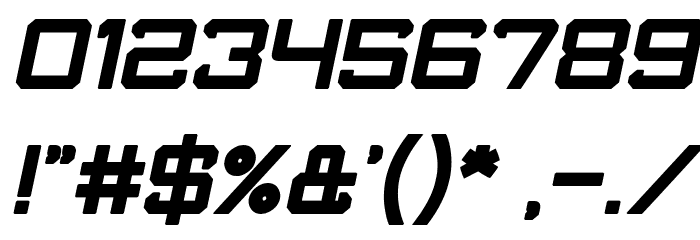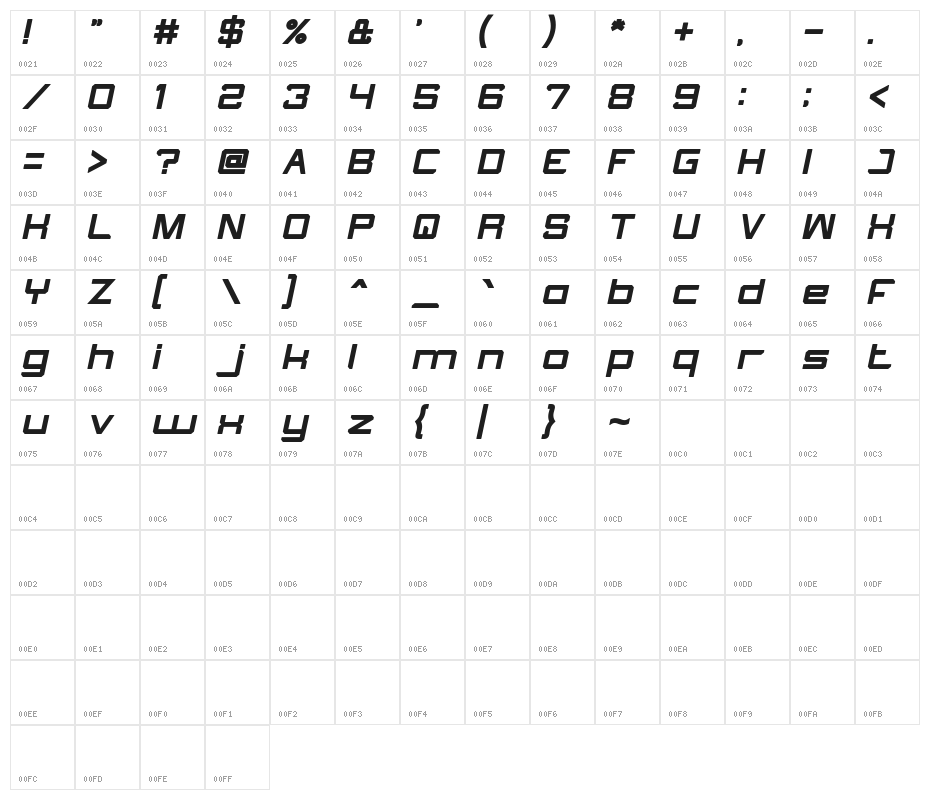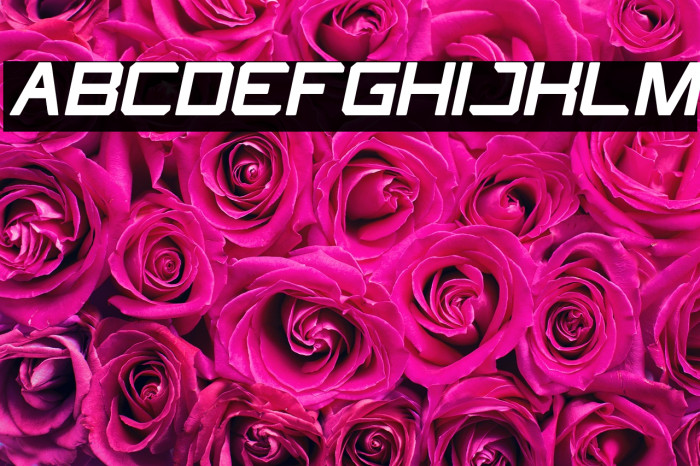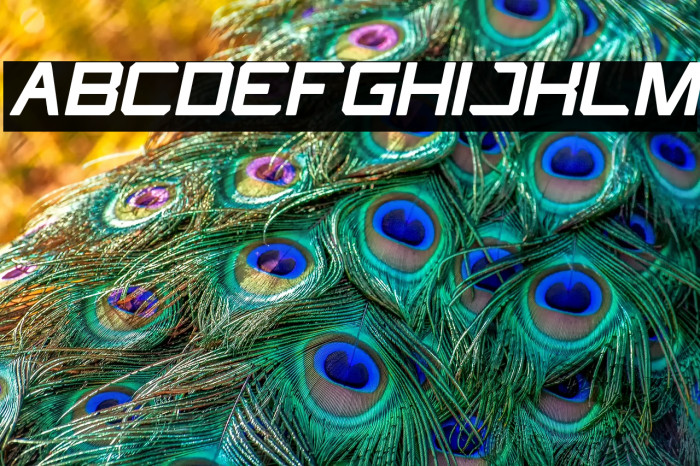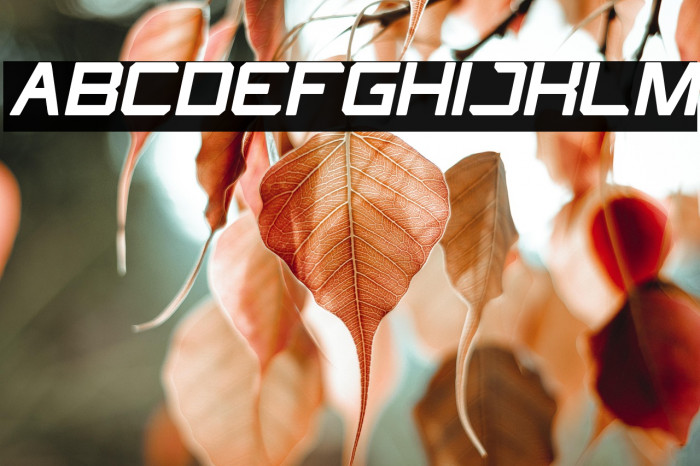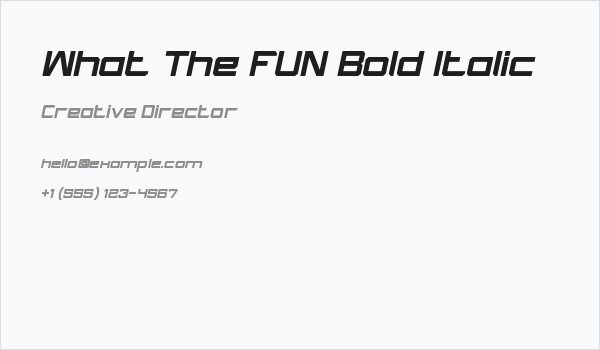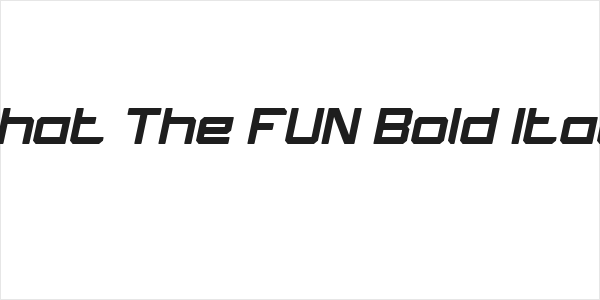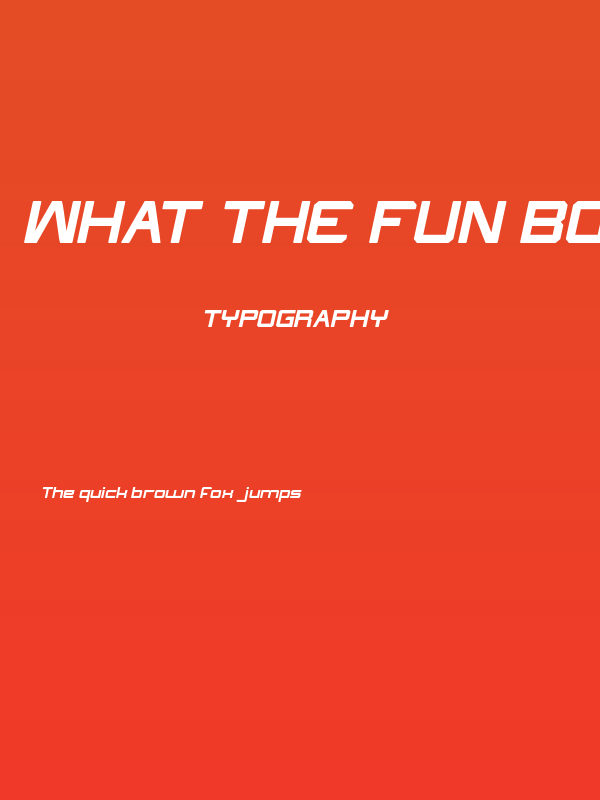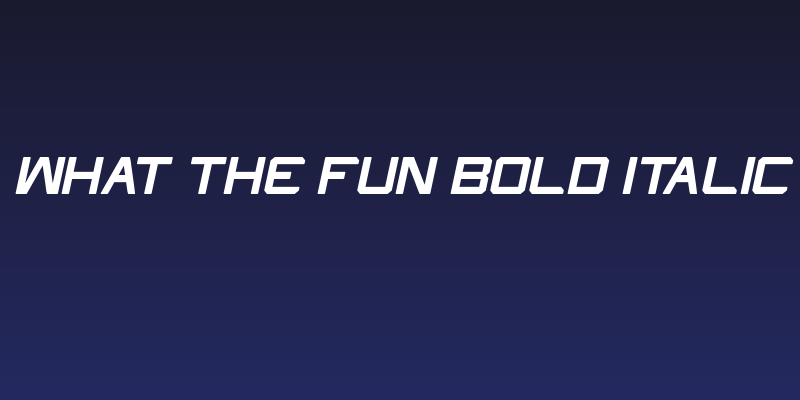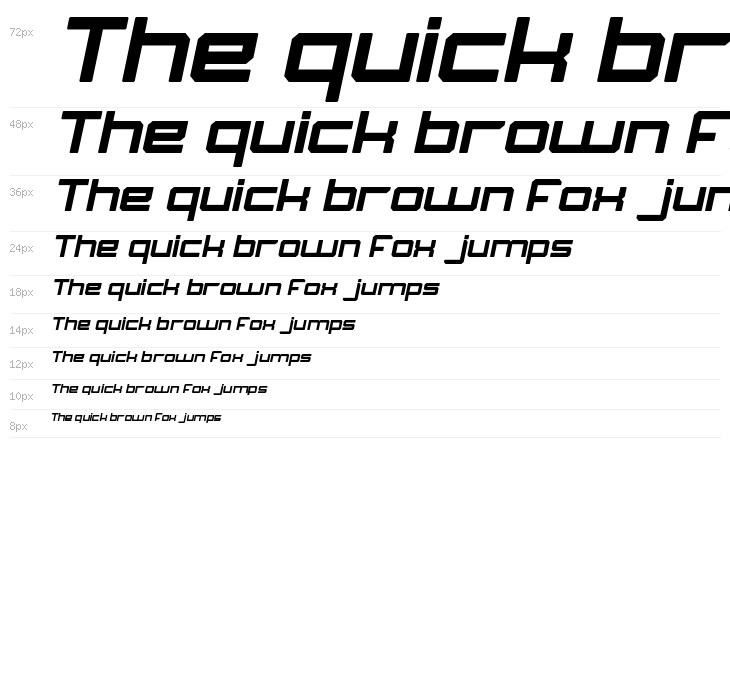
What The FUN Bold Italic Font
What The FUN Bold Italic Description
This font features a bold and italic style with a modern, futuristic flair. The characters are slightly slanted, giving a sense of motion and dynamism. The strokes are thick and consistent, providing a strong visual impact. The design incorporates sharp angles and clean lines, making it suitable for attention-grabbing headlines or logos. The uppercase and lowercase letters maintain a uniform style, while the numerals and special characters complement the overall aesthetic. The font's geometric structure and bold presence make it ideal for projects that require a contemporary and assertive look.
| Proposed Projects | Ideal for branding, advertising, posters, and digital media where a strong, modern presence is desired. |